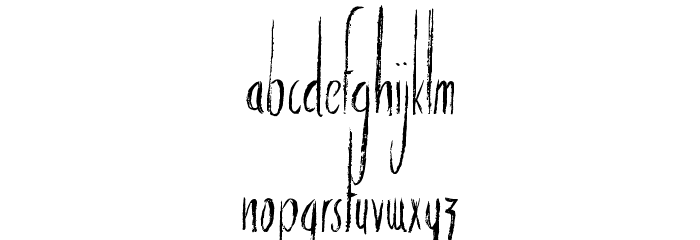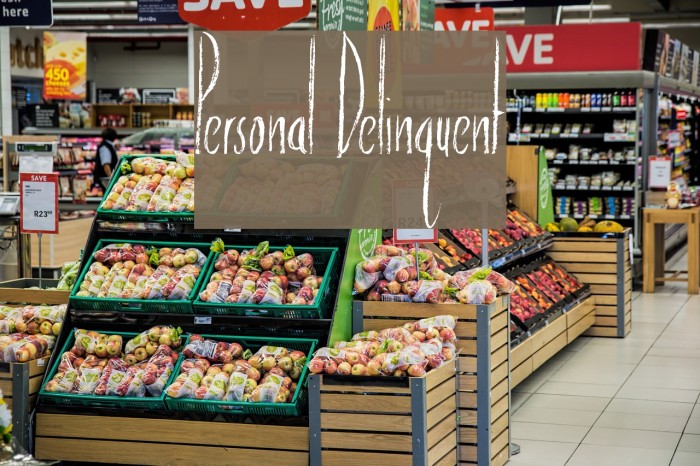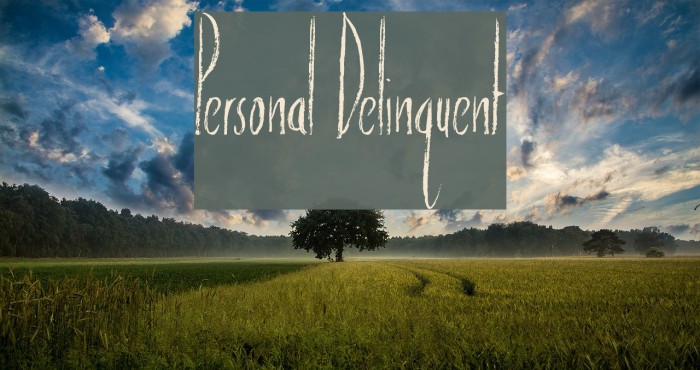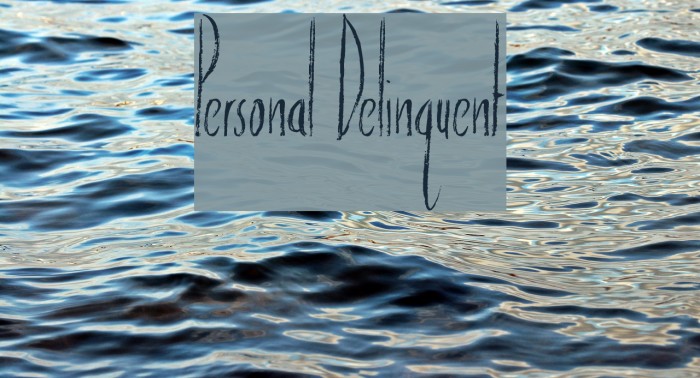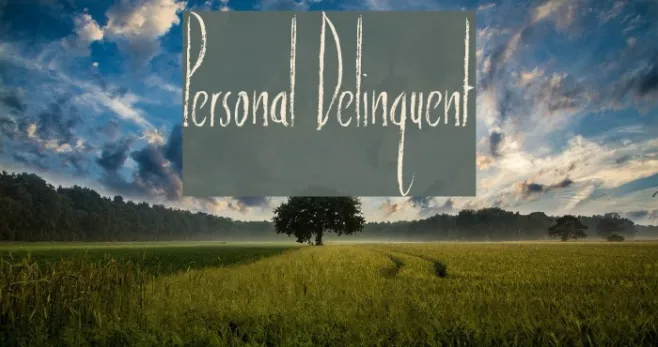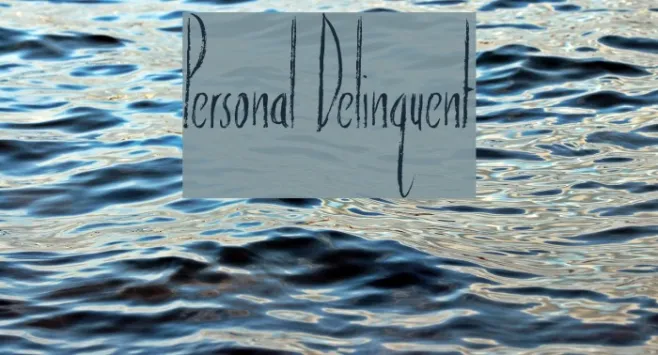
Personal Delinquent Font
This font features a distinct, grungy aesthetic with elongated, narrow characters that convey a sense of edginess and rebellion. The uppercase letters are tall and slender, with a rough, textured appearance that adds a handmade, distressed feel. The lowercase letters maintain this style, offering a cohesive look throughout the alphabet. The font's unique character is further emphasized by its irregular line thickness, creating a dynamic and visually engaging effect. This style is particularly suited for projects that aim to capture an alternative or punk vibe, making it ideal for creative and artistic expressions.
A grungy, narrow font with a distressed, handmade appearance.
- Proposed Projects: Album covers, poster designs, streetwear branding, and alternative event flyers.
- Character Spacing: Tight
- Overall Style: Grunge, Alternative
- Use Case: Logos, Headlines, Artistic projects